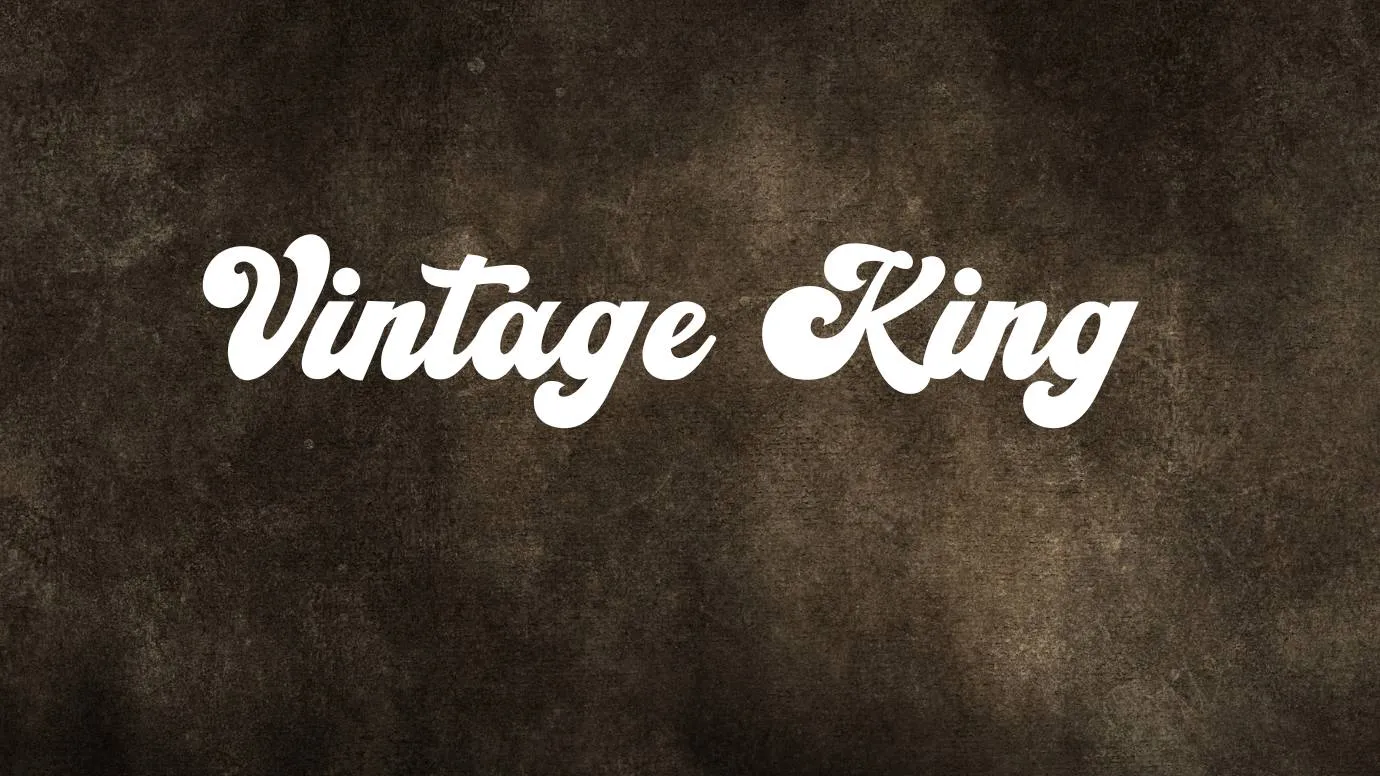
Vintage King Font . Vintage king is licensed under the 1001fonts free for personal use license (ffp) It would look great on headlines,. This font is only for personal use and requires a. It is free for personal use, but requires a commercial license or a donation for. Download vintage king font, a fancy western style font by stringlabs creative studio. Free download of vintage king font. Vintage king font is a groovy and fancy font designed by putracetol studio. This font is pua encoded which means you can access all of the glyphs and swashes with ease! Vintage king is a retro and bold display font. Vintage king is a pack of a vintage bold script font with both crisp and rough versions, the style of vintage king is focused on the bold design of typography from the classic eras of the 70’s and the 80’s. Click now to create a custom image with your own words that you can download. You can download it for free for personal use, or use the text generator tool to create text graphics with different colors. Inspired from retro typography and lettering in the 70's and 80's combine with bold typography. A retro bold script style font, come with clean and rough font version. Vintage king is a fancy and groovy font by putracetol studio.
You can download it for free for personal use, or use the text generator tool to create text graphics with different colors. It is free for personal use, but requires a commercial license or a donation for. Vintage king is a pack of a vintage bold script font with both crisp and rough versions, the style of vintage king is focused on the bold design of typography from the classic eras of the 70’s and the 80’s. Inspired from retro typography and lettering in the 70's and 80's combine with bold typography. Download vintage king font, a fancy western style font by stringlabs creative studio. Click now to create a custom image with your own words that you can download. A retro bold script style font, come with clean and rough font version. This font is only for personal use and requires a. Free download of vintage king font. Vintage king is a retro and bold display font.
Vintage King Font This font is pua encoded which means you can access all of the glyphs and swashes with ease! A retro bold script style font, come with clean and rough font version. Vintage king is licensed under the 1001fonts free for personal use license (ffp) You can download it for free for personal use, or use the text generator tool to create text graphics with different colors. Vintage king is a fancy and groovy font by putracetol studio. Vintage king is a pack of a vintage bold script font with both crisp and rough versions, the style of vintage king is focused on the bold design of typography from the classic eras of the 70’s and the 80’s. It is free for personal use, but requires a commercial license or a donation for. Click now to create a custom image with your own words that you can download. Vintage king font is a groovy and fancy font designed by putracetol studio. Download vintage king font, a fancy western style font by stringlabs creative studio. It would look great on headlines,. Vintage king is a retro and bold display font. This font is only for personal use and requires a. Inspired from retro typography and lettering in the 70's and 80's combine with bold typography. This font is pua encoded which means you can access all of the glyphs and swashes with ease! Free download of vintage king font.
Striped King Vintage Cursive Font 76419 TemplateMonster Vintage King Font Inspired from retro typography and lettering in the 70's and 80's combine with bold typography. A retro bold script style font, come with clean and rough font version. You can download it for free for personal use, or use the text generator tool to create text graphics with different colors. Vintage king font is a groovy and fancy font designed. Vintage King Font.
Vintage King Font PutraCetol Studio FontSpace Vintage King Font Free download of vintage king font. Vintage king is a pack of a vintage bold script font with both crisp and rough versions, the style of vintage king is focused on the bold design of typography from the classic eras of the 70’s and the 80’s. A retro bold script style font, come with clean and rough font version. This. Vintage King Font.
Vintage King Font Free Download Vintage King Font This font is pua encoded which means you can access all of the glyphs and swashes with ease! This font is only for personal use and requires a. Inspired from retro typography and lettering in the 70's and 80's combine with bold typography. Vintage king is a pack of a vintage bold script font with both crisp and rough versions,. Vintage King Font.
Vintage King Font Free Download Vintage King Font Vintage king is licensed under the 1001fonts free for personal use license (ffp) A retro bold script style font, come with clean and rough font version. It is free for personal use, but requires a commercial license or a donation for. Vintage king is a pack of a vintage bold script font with both crisp and rough versions, the style. Vintage King Font.
Vintage King font details Vintage King Font A retro bold script style font, come with clean and rough font version. Vintage king is a retro and bold display font. You can download it for free for personal use, or use the text generator tool to create text graphics with different colors. Vintage king is licensed under the 1001fonts free for personal use license (ffp) Download vintage king. Vintage King Font.
Vintage King Font Download Free for Desktop & font Vintage King Font Vintage king is licensed under the 1001fonts free for personal use license (ffp) It is free for personal use, but requires a commercial license or a donation for. A retro bold script style font, come with clean and rough font version. Free download of vintage king font. This font is pua encoded which means you can access all of the. Vintage King Font.
Striped King Vintage Script Font Free Download Free cursive fonts Vintage King Font Vintage king font is a groovy and fancy font designed by putracetol studio. A retro bold script style font, come with clean and rough font version. This font is only for personal use and requires a. It would look great on headlines,. Inspired from retro typography and lettering in the 70's and 80's combine with bold typography. Vintage king is. Vintage King Font.
Vintage King Font by A A studio · Creative Fabrica Vintage King Font Vintage king font is a groovy and fancy font designed by putracetol studio. This font is only for personal use and requires a. Download vintage king font, a fancy western style font by stringlabs creative studio. It would look great on headlines,. A retro bold script style font, come with clean and rough font version. Vintage king is a fancy. Vintage King Font.
Vintage King Font It is free for personal use, but requires a commercial license or a donation for. Vintage king is a retro and bold display font. Free download of vintage king font. Inspired from retro typography and lettering in the 70's and 80's combine with bold typography. Click now to create a custom image with your own words that you can download.. Vintage King Font.
Vintage King Font by putracetol · Creative Fabrica Vintage King Font Inspired from retro typography and lettering in the 70's and 80's combine with bold typography. Vintage king is a pack of a vintage bold script font with both crisp and rough versions, the style of vintage king is focused on the bold design of typography from the classic eras of the 70’s and the 80’s. It would look great on. Vintage King Font.